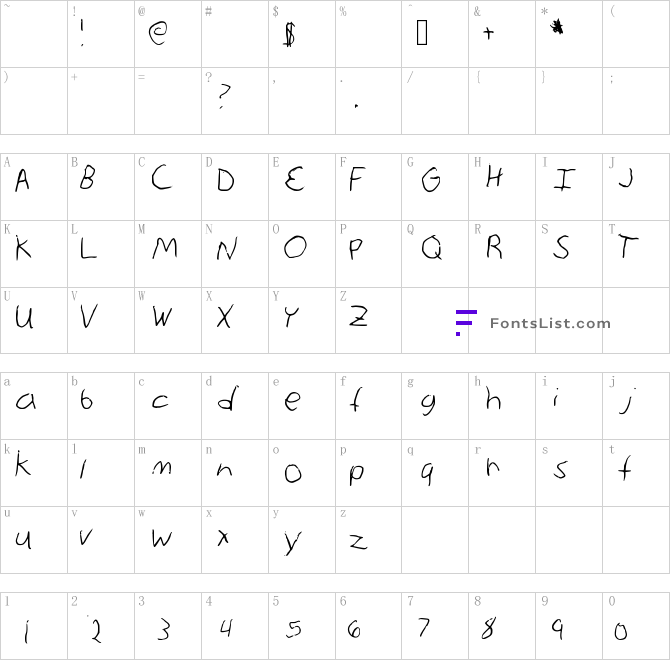
- Font Name:annie Max
annie-Max-Medium.ttf is a very beautiful artistic font, annie-Max-Medium.ttf is widely used in the design and printing of various books and pictures,annie-Max-Medium.ttf has a strong visual impact,annie-Max-Medium.ttf is a commonly used font in newspapers, magazines and books, and is used in posters, e-commerce Poster design, store design, logo design, font design and other fields.annie-Max-Medium.